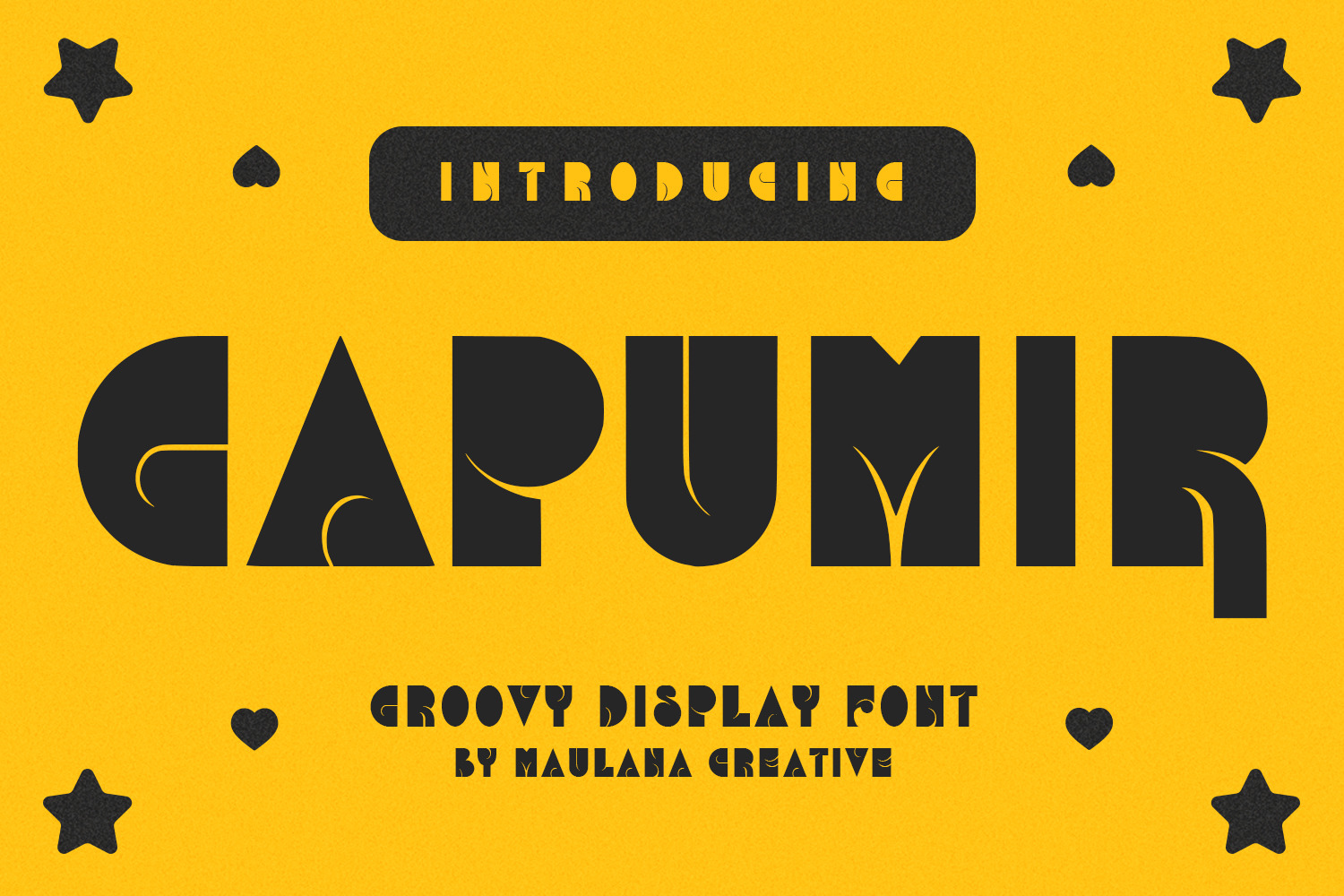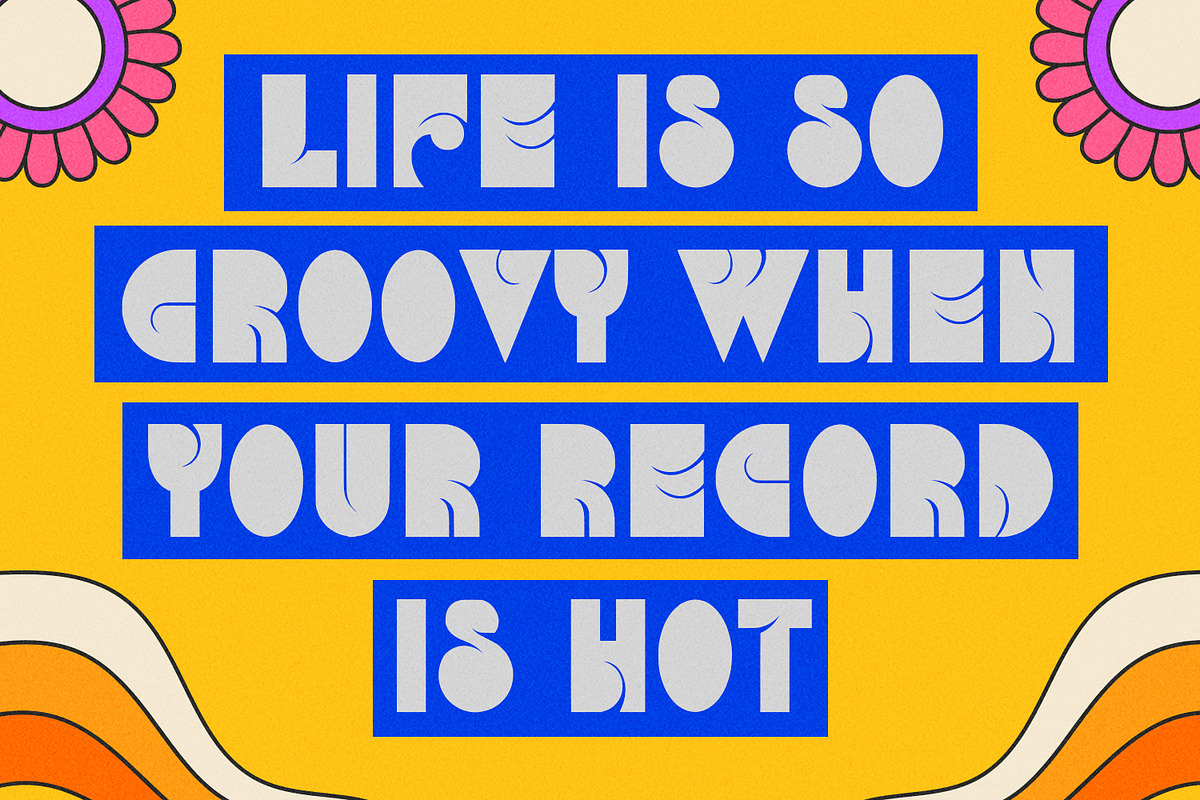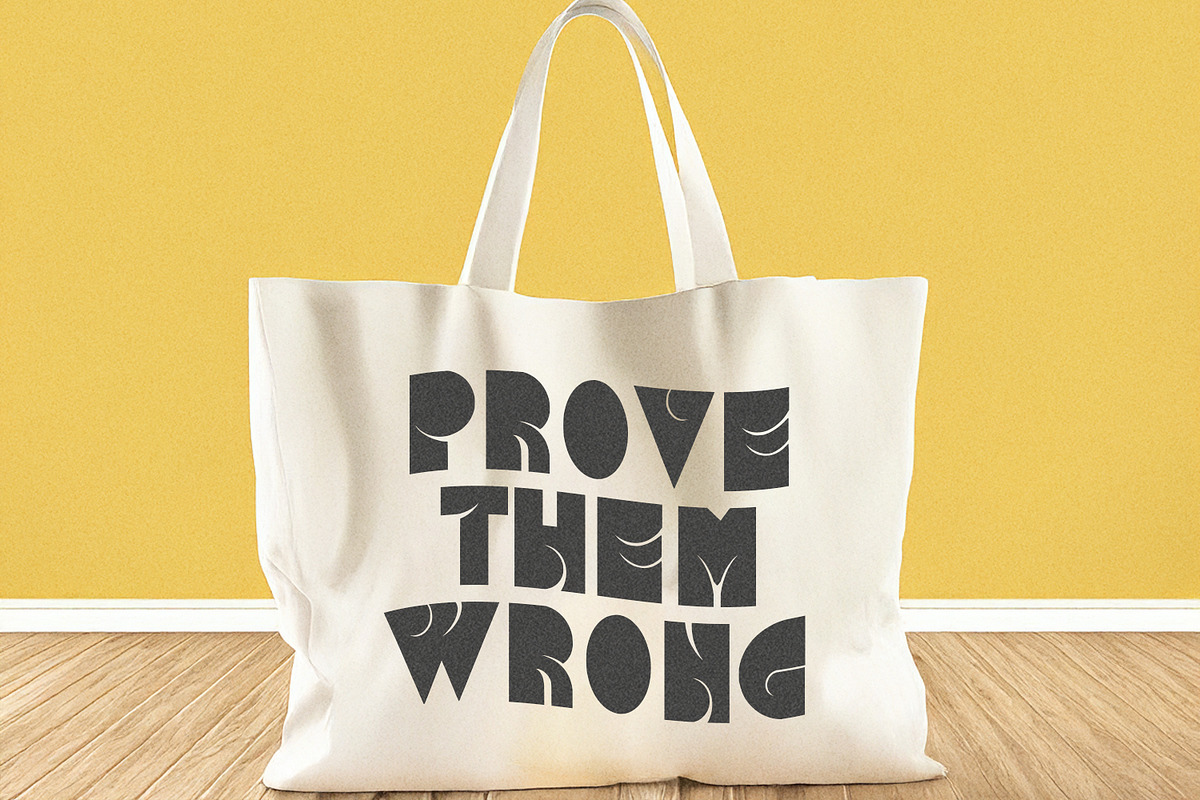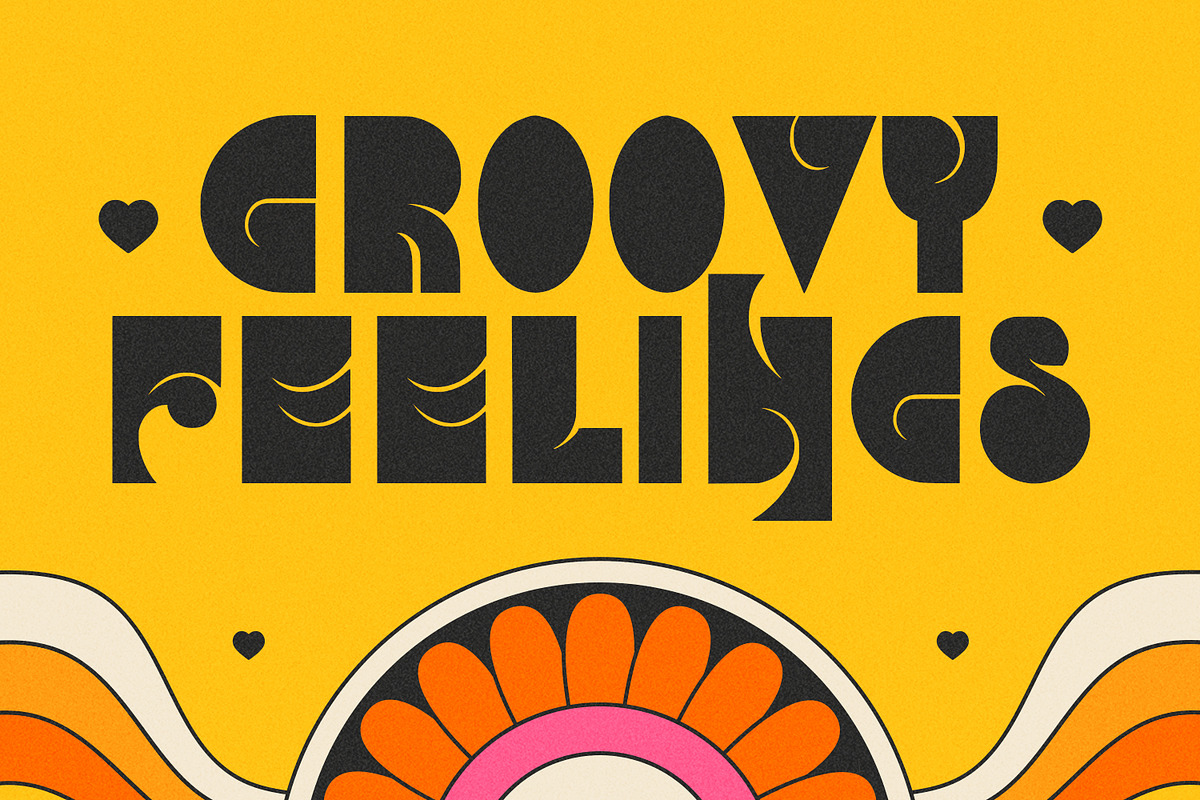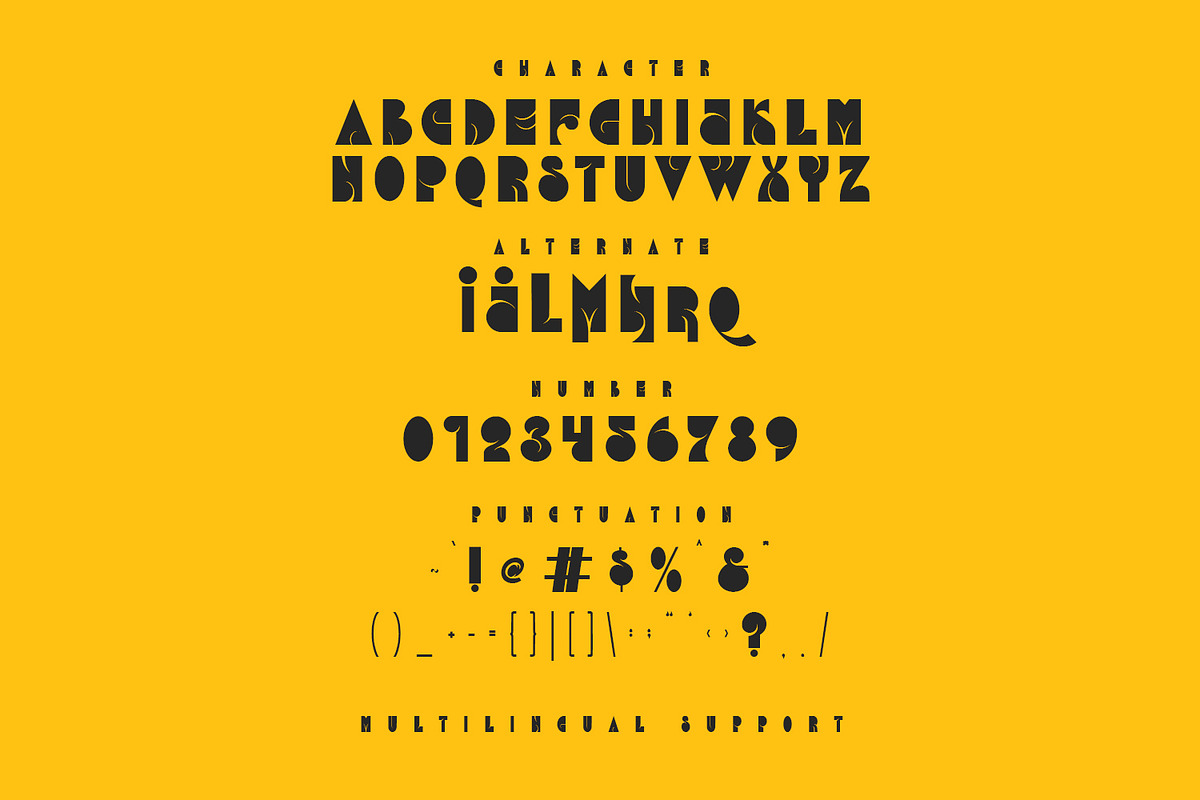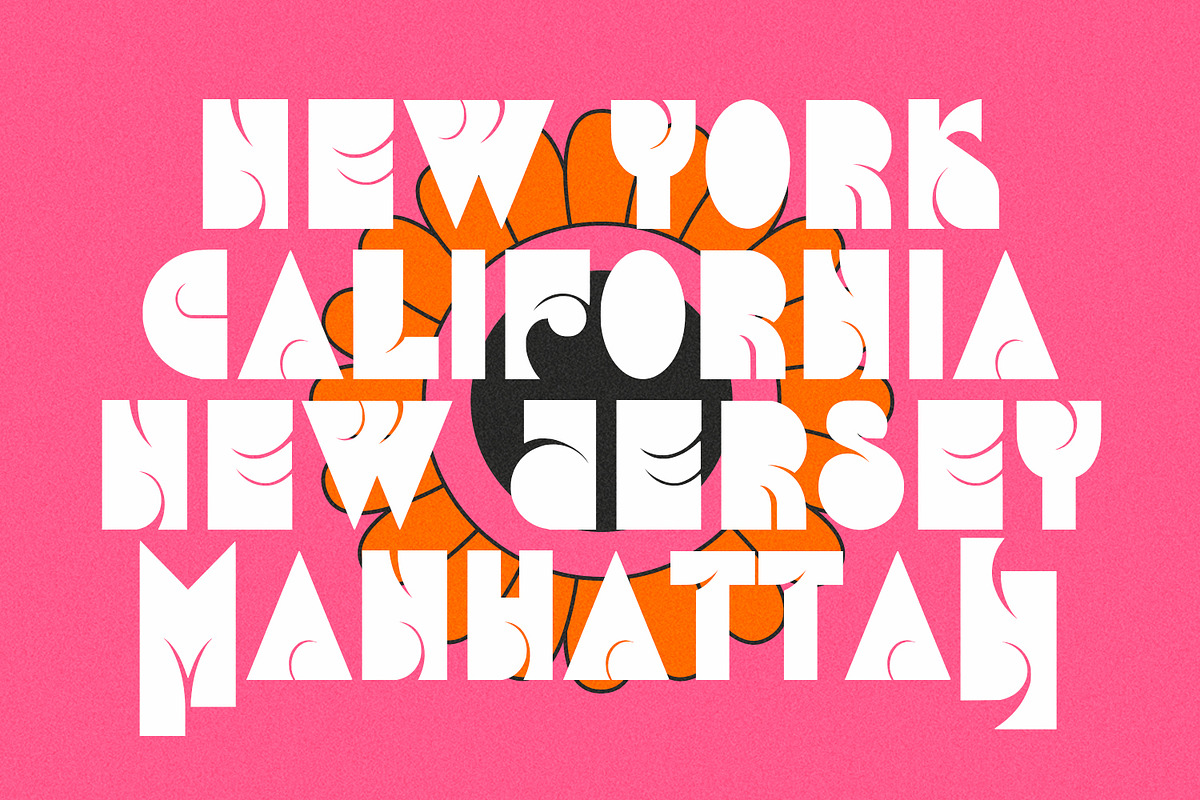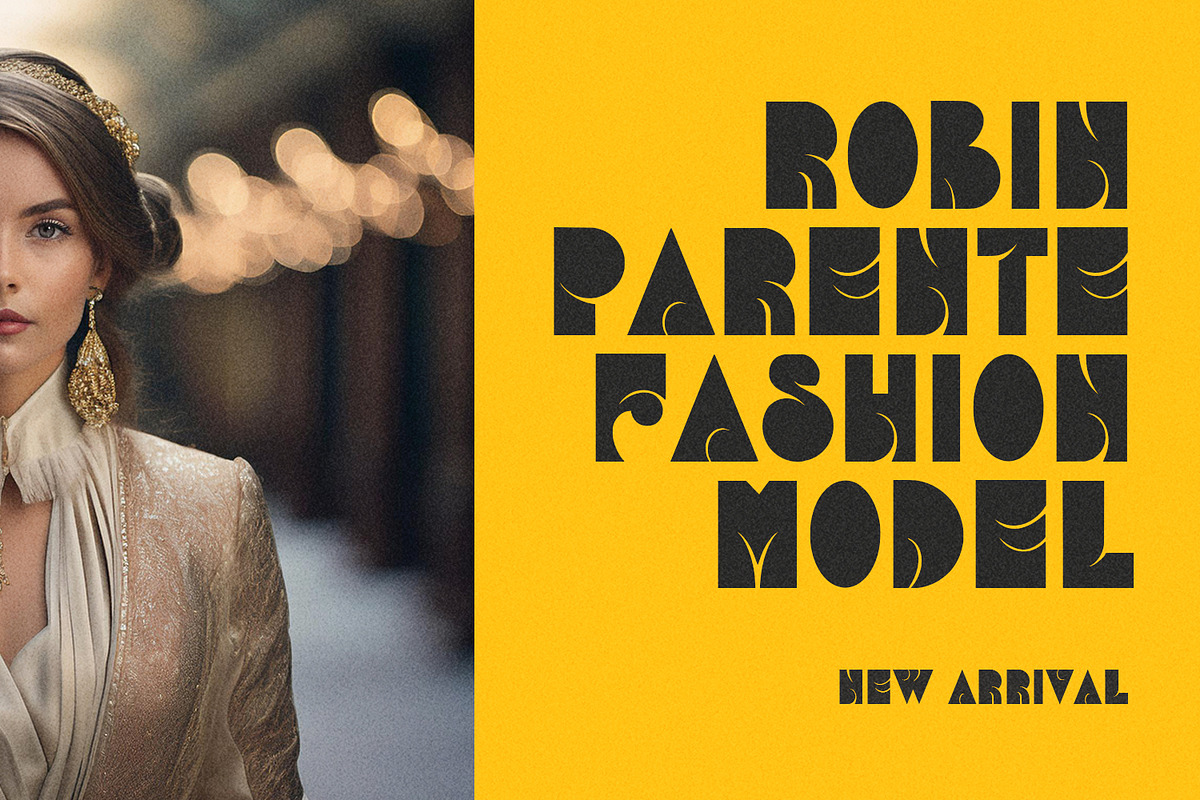
Gapumir Groovy Display Font
Gapumir futuristic display font is a modern font. With bold stroke, fun character with alternates. To give you an extra creative work. Gapumir font support multilingual language. This font is good for logo design, Social media, Movie Titles, Books Titles, a short text even a long text letter and good for your secondary text font with sans or serif. Make a stunning work with Gapumir font.